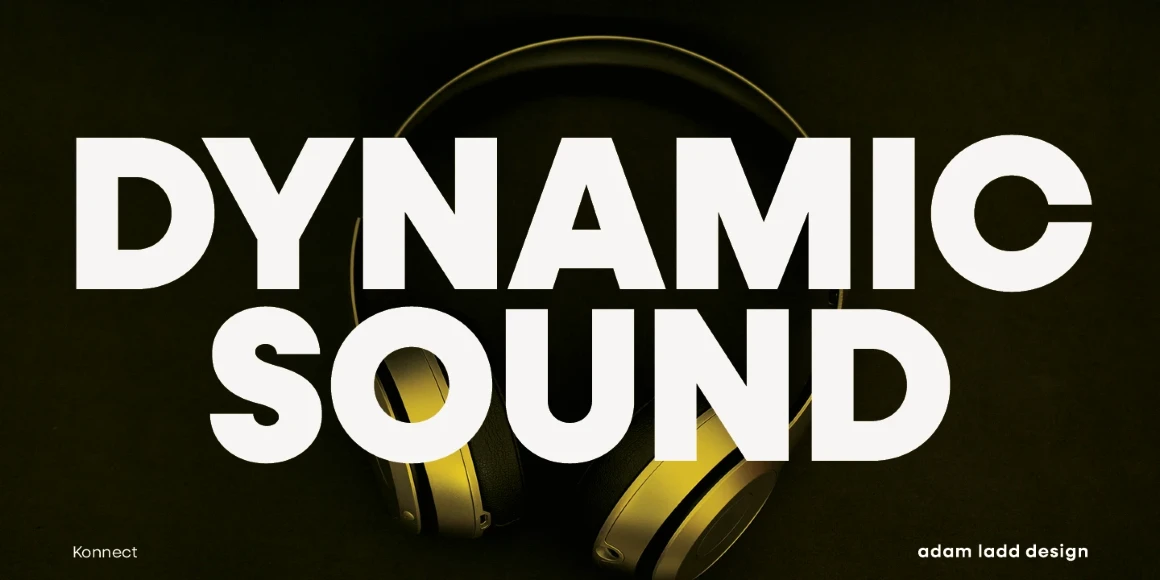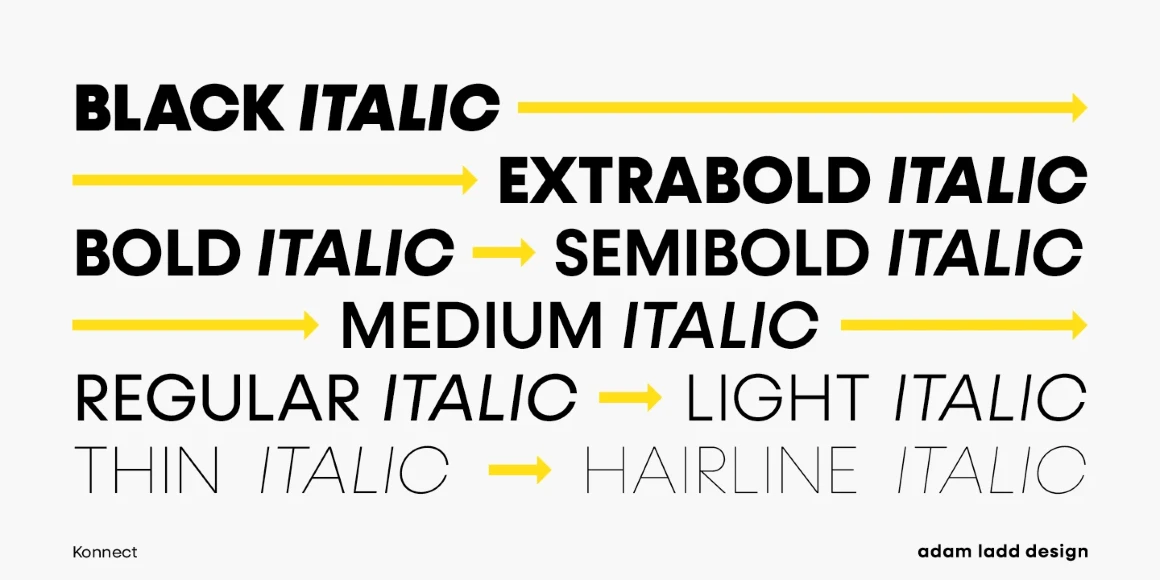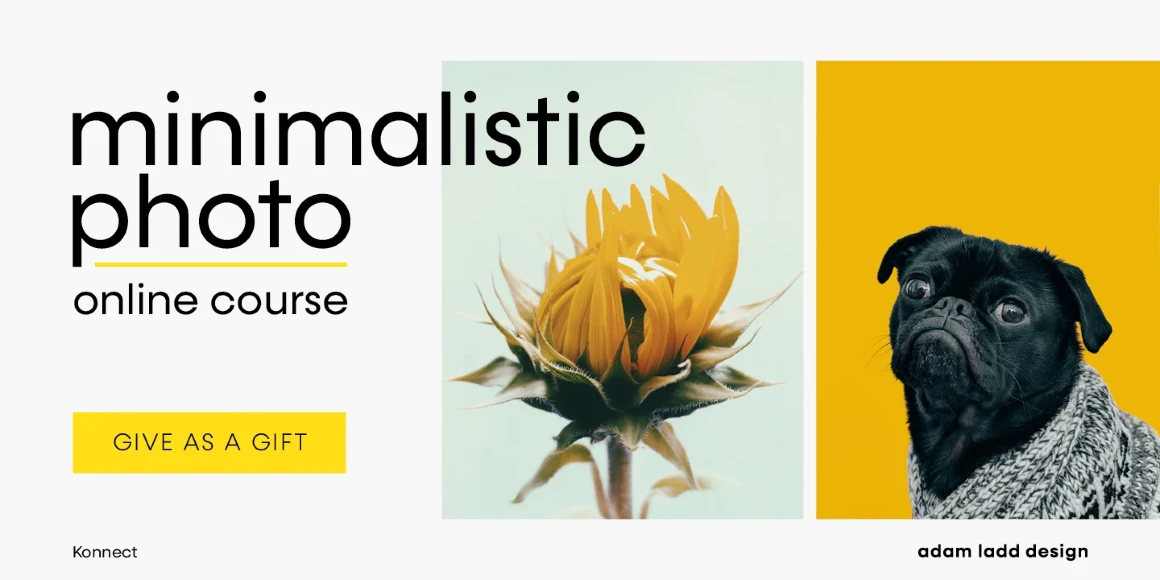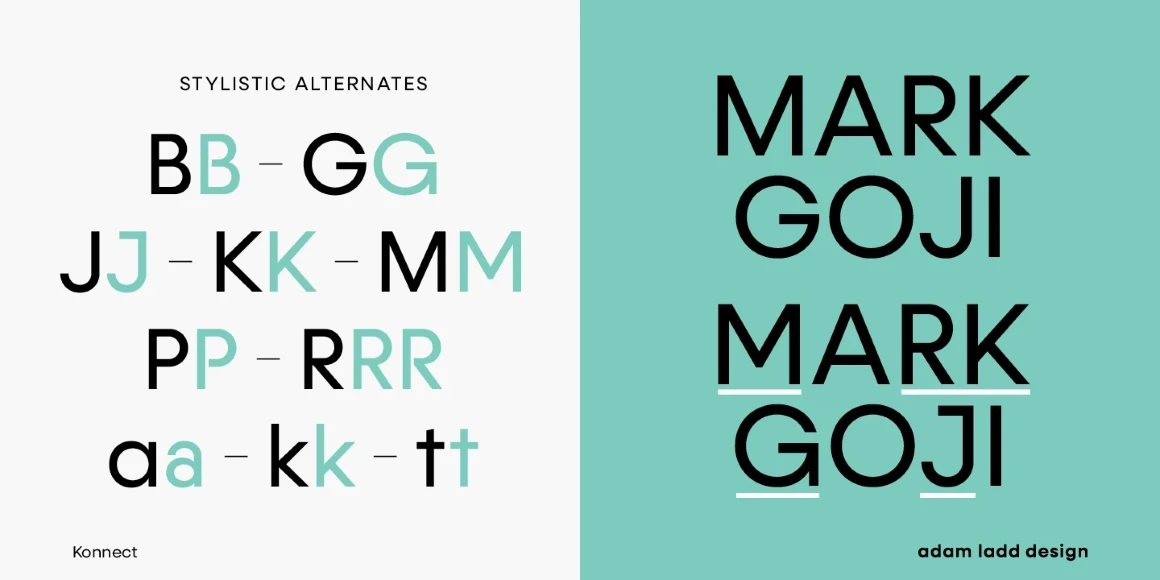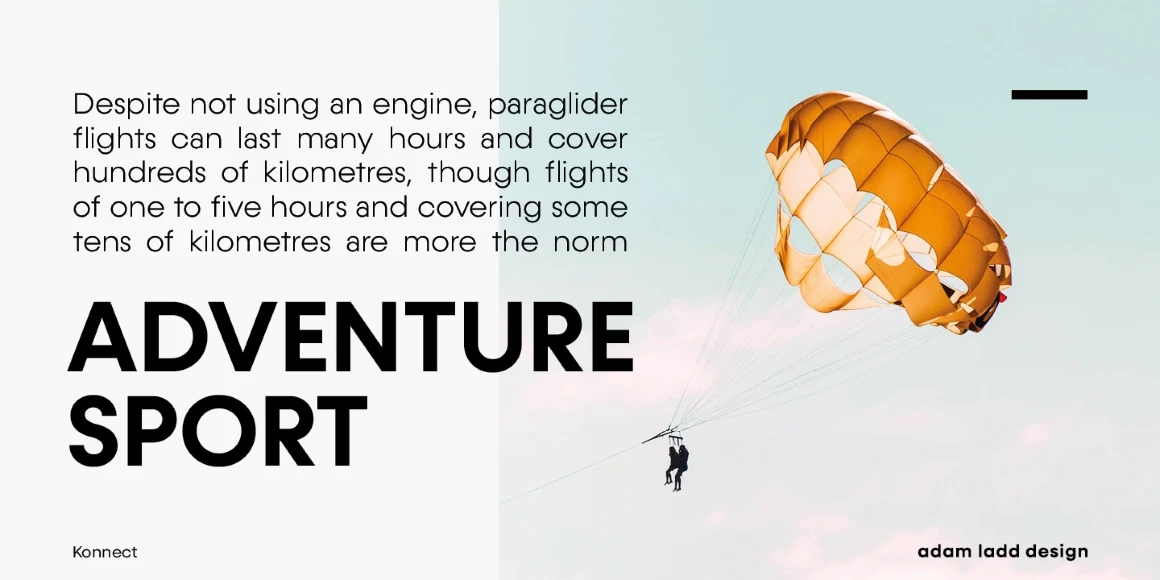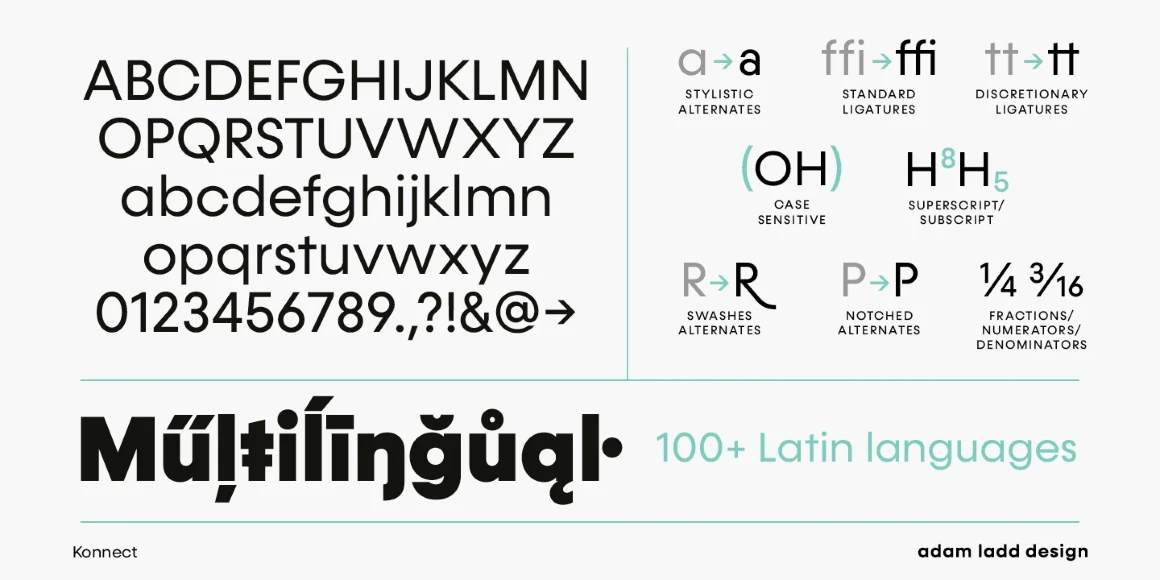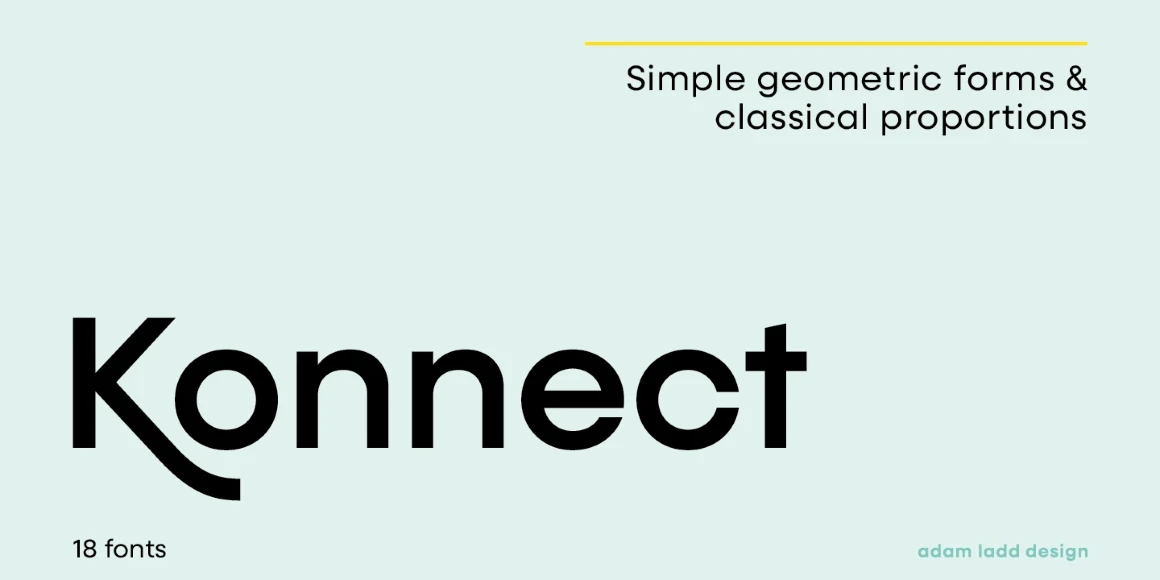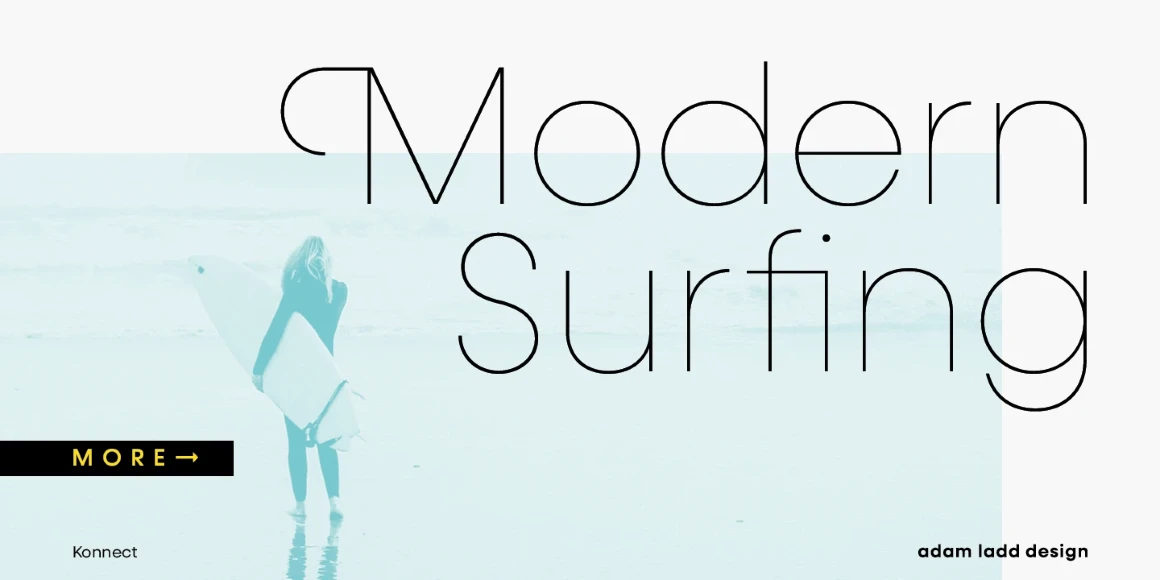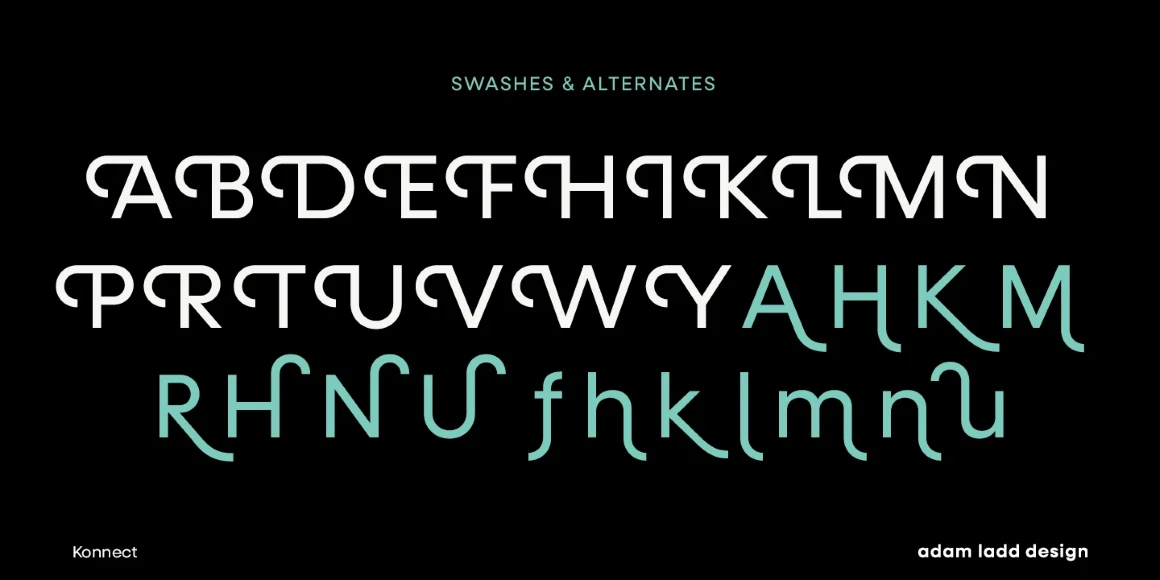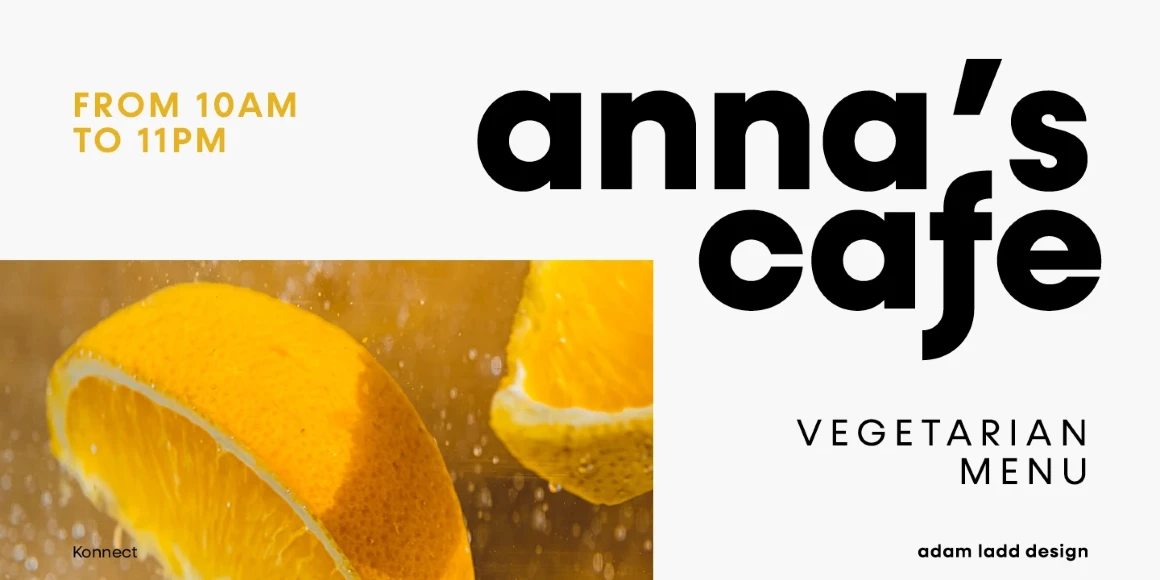
Konnect
By Adam Ladd
Konnect is an entirely modern geometric sans made for dramatic statements. While the simple, clean forms and proportions are timeless, the large x-height, closed apertures, and horizontal/vertical terminals provide a more distinct take on this genre, quite noticeable in display settings. This family includes a robust range of weights, from a delicate Hairline to a hefty Black, each with italics. Konnect is ideal for branding, advertising, logos, magazines, headlines, posters, and more!